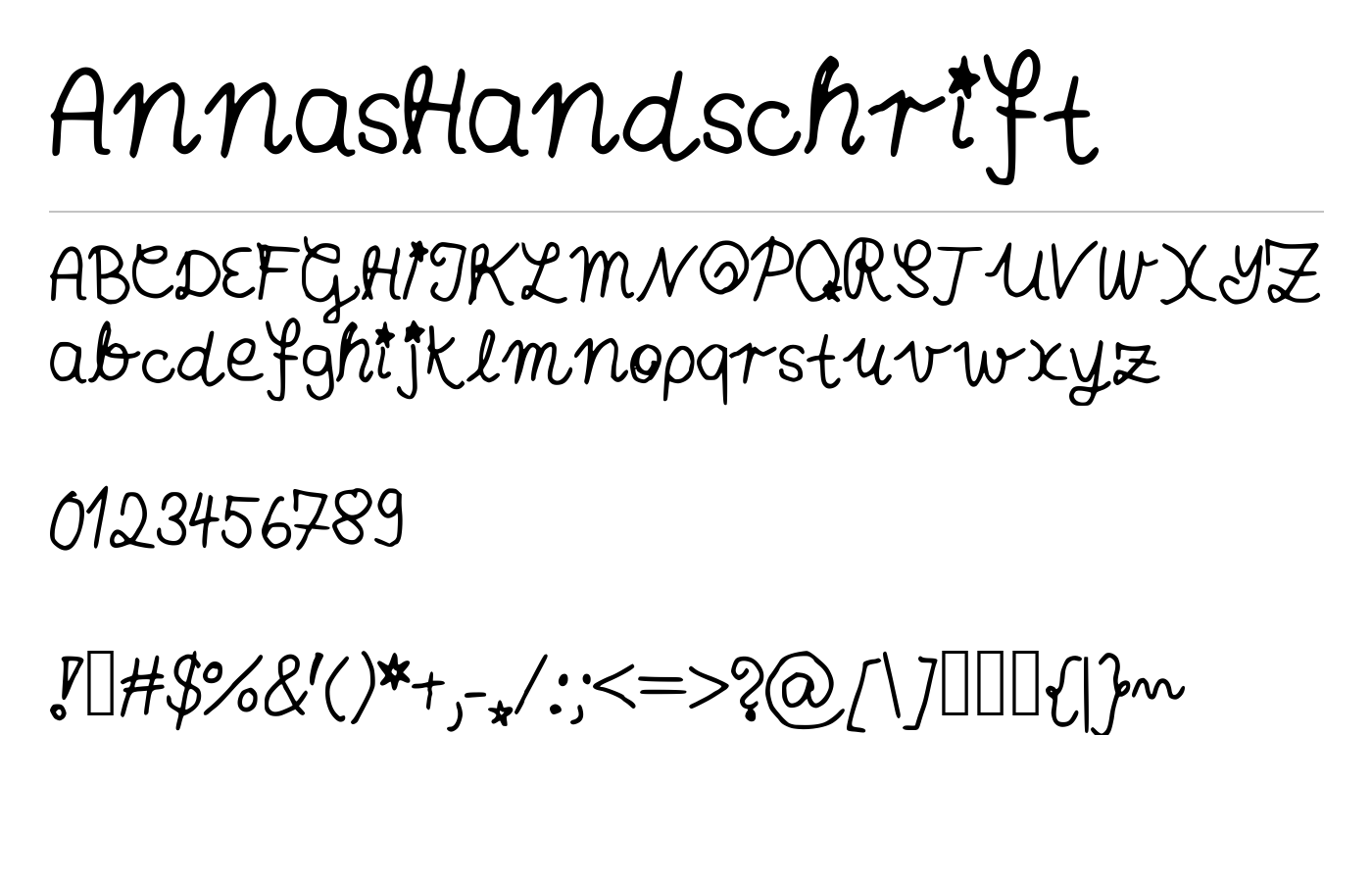
AnnasHandschrift is a playful, handwritten script font with a casual, friendly vibe. Its lively, irregular strokes and quirky details like star-shaped dots give it a charming, personal touch perfect for creative projects, informal branding, or fun invitations. This font works well in contexts that want to convey warmth and individuality rather than strict professionalism.